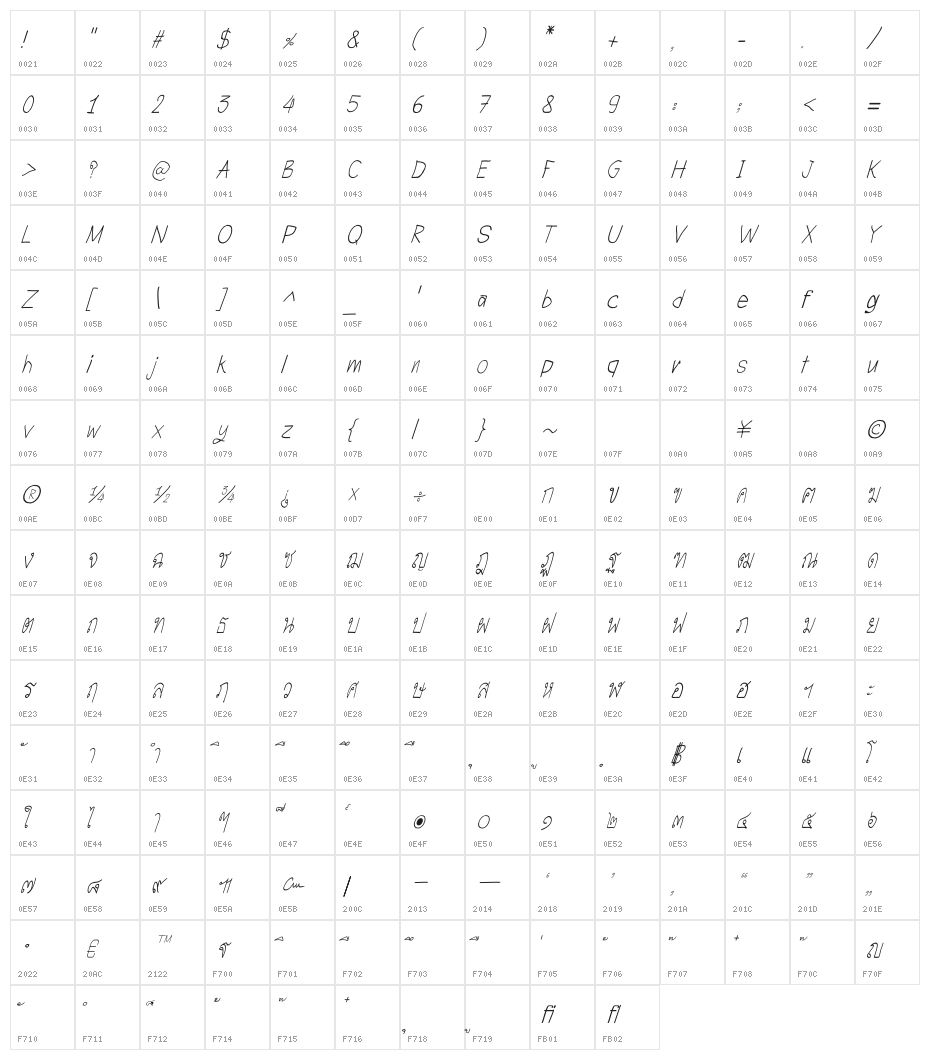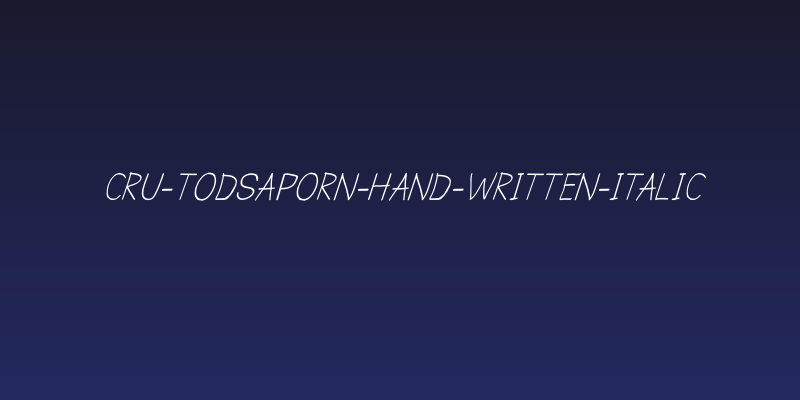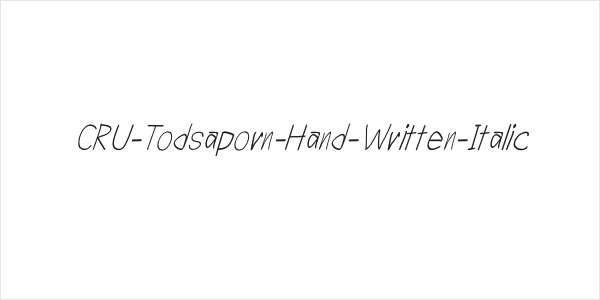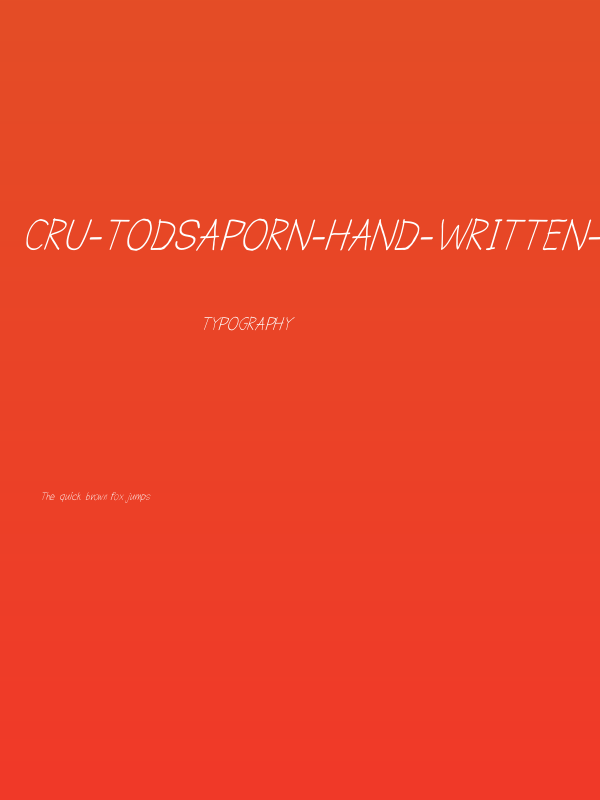
CRU-Todsaporn-Hand-Written-Italic Font
CRU-Todsaporn-Hand-Written-Italic Description
This font features a handwritten style with a distinct italic slant, giving it a casual and personal touch. The characters are slightly elongated, with a smooth flow that mimics natural handwriting. Uppercase letters maintain a consistent height, while lowercase letters have a playful, varied baseline. The numerals are clear and legible, matching the overall style of the alphabet. Special characters are integrated seamlessly, maintaining the handwritten aesthetic. The strokes are consistent in thickness, providing a balanced appearance without high contrast. This font is ideal for projects that require a personal, informal touch.
| Use Case | Headlines, Logos, Informal text |
| Proposed Projects | Greeting cards, personal notes, informal invitations, and creative projects. |